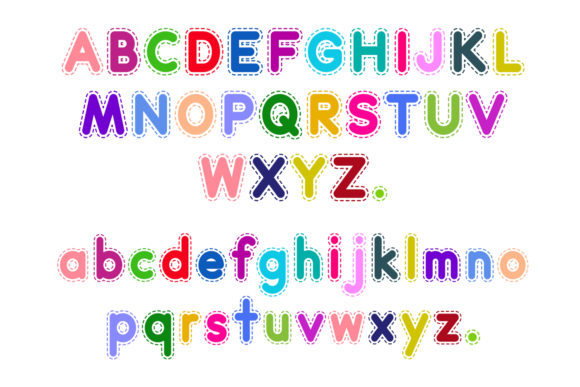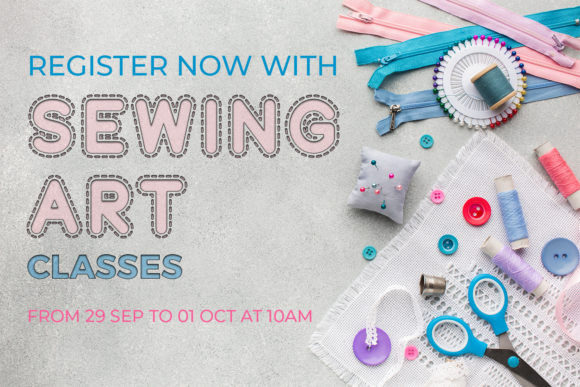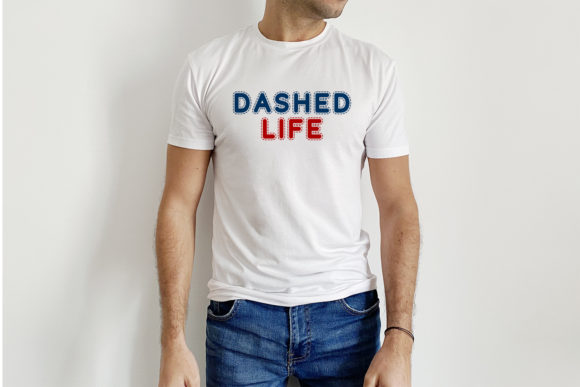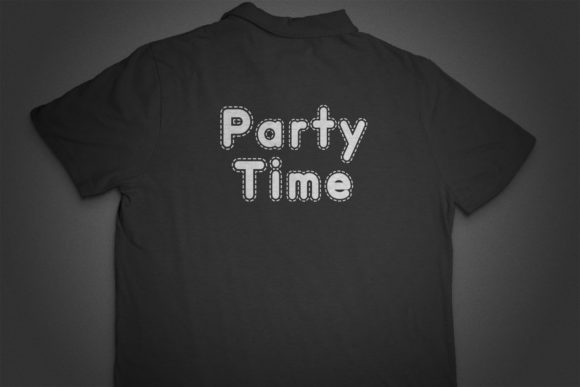
Introducing Dashed Font: The Bold and Chunky Lettered Display Font
Are you tired of using the same old fonts for your creative projects? Look no further! Dashed Font is here to take your designs to the next level. This bold and chunky lettered display font is perfect for crafters, designers, and anyone looking to add a touch of personality to their work. In this article, we’ll dive into the world of Dashed Font and explore how it can elevate your creative ideas.
What is Dashed Font?
Dashed Font is a unique and eye-catching display font that features bold, chunky letters with a distinctive dashed effect. Its rugged and edgy design makes it perfect for projects that require a statement piece. Whether you’re working on a logo, poster, or social media graphic, Dashed Font is sure to grab attention and leave a lasting impression.
Key Features of Dashed Font
- Bold and Chunky Design: Dashed Font features thick, heavy lines that give it a bold and chunky appearance.
- Dashed Effect: The font’s distinctive dashed effect adds a touch of edginess and sophistication.
- High-Quality Design: Dashed Font is designed with precision and attention to detail, ensuring a high-quality look and feel.
How to Use Dashed Font in Your Designs
Dashed Font is versatile and can be used in a variety of creative projects. Here are some ideas to get you started:
- Logos and Branding: Use Dashed Font to create a bold and memorable logo that stands out from the crowd.
- Posters and Flyers: Add a touch of edginess to your posters and flyers with Dashed Font.
- Social Media Graphics: Use Dashed Font to create eye-catching social media graphics that grab attention.
- Crafting and Scrapbooking: Add a personal touch to your crafting and scrapbooking projects with Dashed Font.
Benefits of Using Dashed Font
So, why choose Dashed Font for your designs? Here are just a few benefits:
- Unique and Eye-Catching: Dashed Font is a one-of-a-kind font that will make your designs stand out.
- Easy to Read: Despite its bold and chunky design, Dashed Font is easy to read and understand.
- Versatile: Dashed Font can be used in a variety of creative projects, from logos and branding to posters and social media graphics.
- High-Quality: Dashed Font is designed with precision and attention to detail, ensuring a high-quality look and feel.
Tips and Tricks for Using Dashed Font
Here are a few tips and tricks to help you get the most out of Dashed Font:
- Experiment with Colors: Try pairing Dashed Font with different colors to create a unique and eye-catching look.
- Play with Size: Experiment with different font sizes to add emphasis and create visual interest.
- Combine with Other Fonts: Try pairing Dashed Font with other fonts to create a unique and interesting contrast.
Dashed Font is a bold and chunky lettered display font that’s perfect for crafters, designers, and anyone looking to add a touch of personality to their work. With its unique and eye-catching design, Dashed Font is sure to make your creative ideas stand out. Whether you’re working on a logo, poster, or social media graphic, Dashed Font is a great choice. So why wait? Add Dashed Font to your creative toolkit today and start creating stunning designs that grab attention!